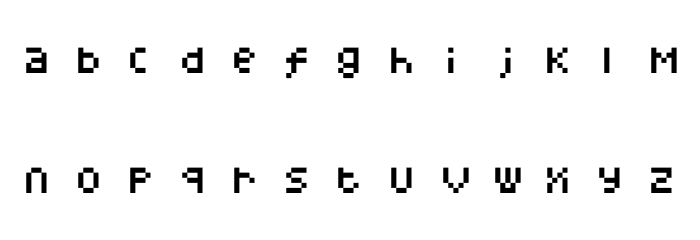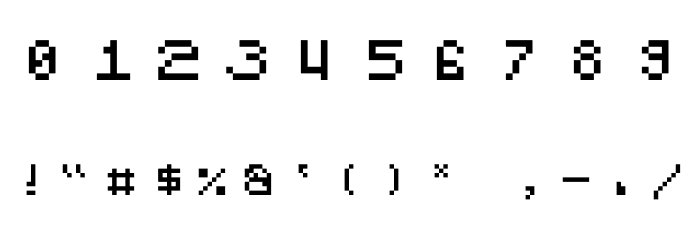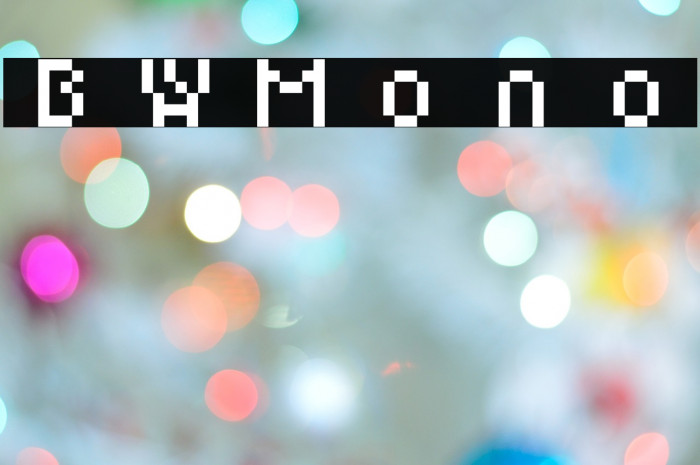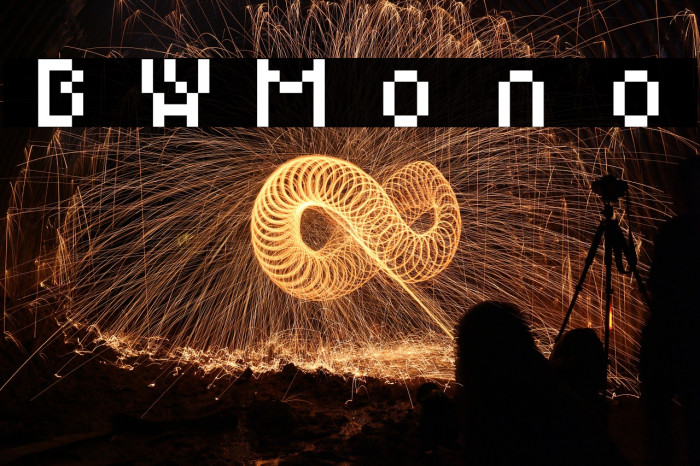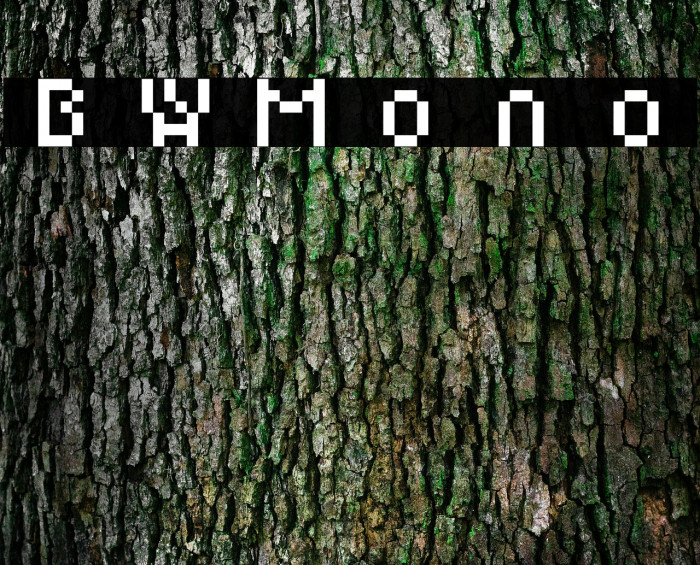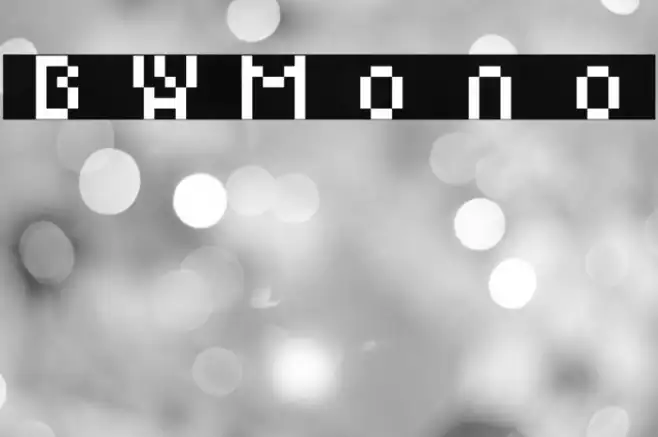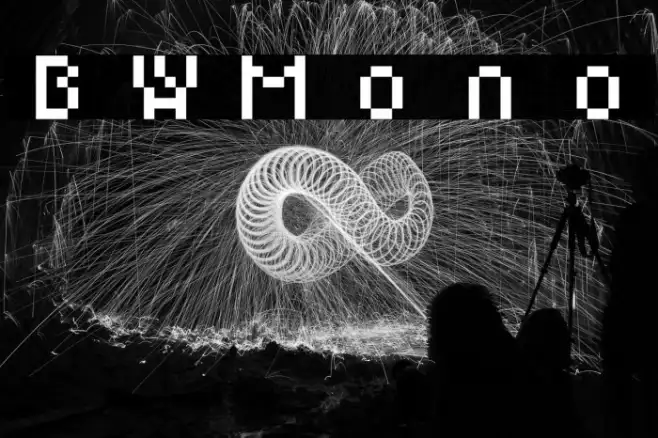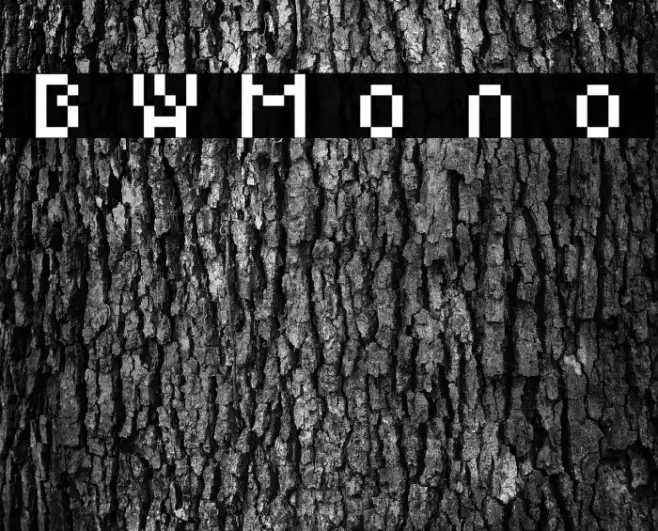
BWMono Font
This font features a pixelated, monospaced design reminiscent of early computer and video game graphics. Each character is constructed with a uniform grid-like structure, giving it a distinctly retro and digital appearance. The uppercase and lowercase letters maintain a consistent height, contributing to a cohesive and orderly look. The numerals and special characters follow the same pixelated style, ensuring visual harmony across all glyphs. This font's simplicity and clarity make it ideal for projects that require a nostalgic or tech-inspired aesthetic.
A pixelated, monospaced font with a retro digital style.
- Proposed Projects: Ideal for retro video games, tech-themed designs, digital art, and coding interfaces.
- Overall Style: Retro, Digital
- Use Case: Logos, Digital displays, Coding interfaces